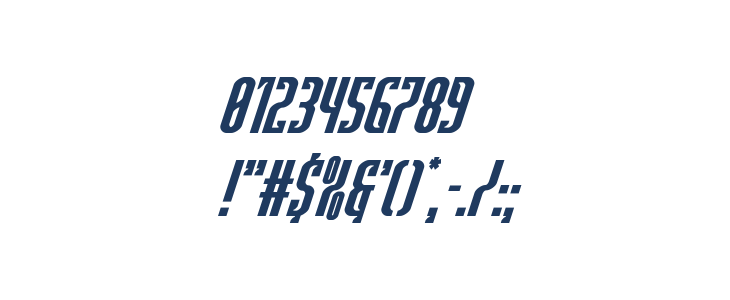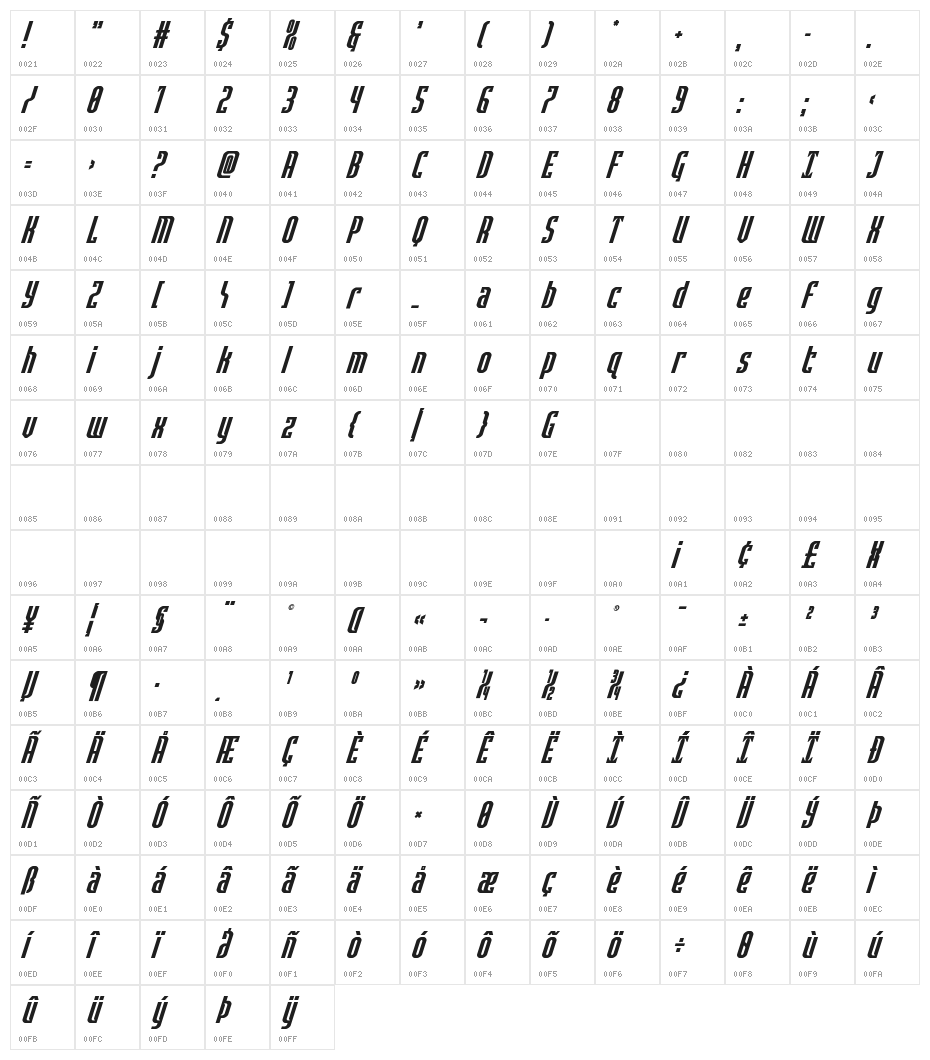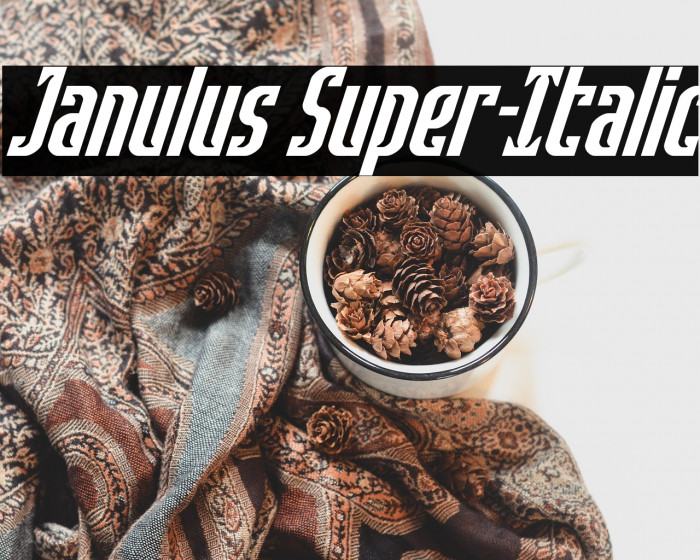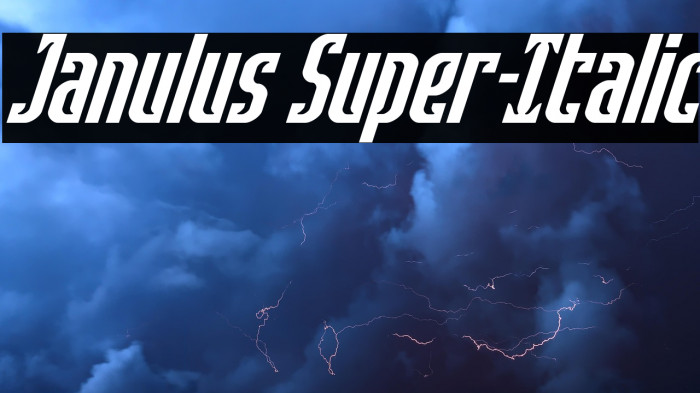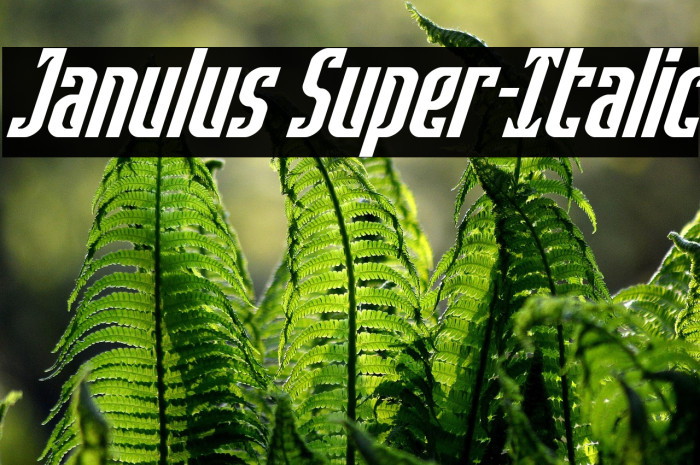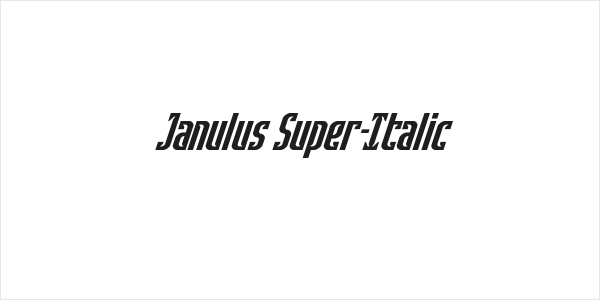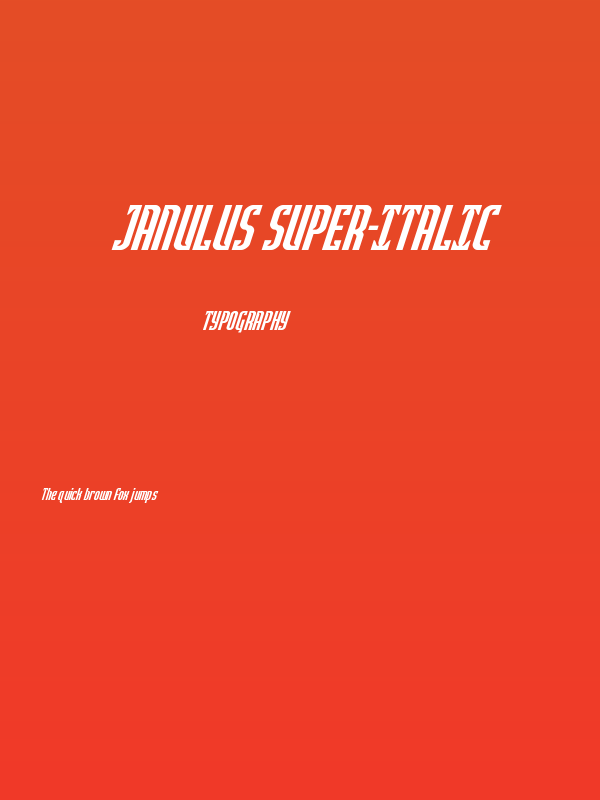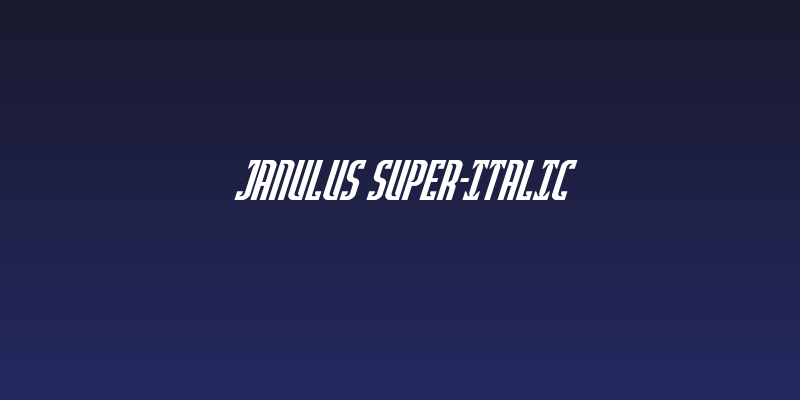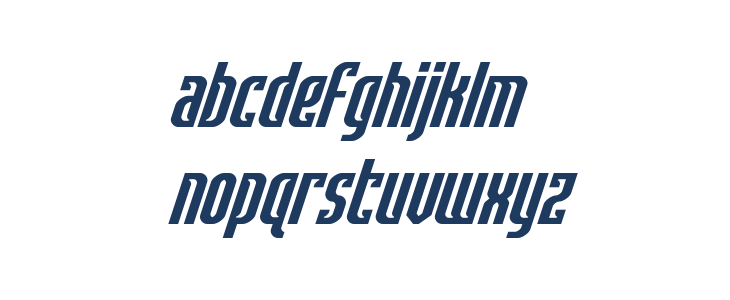
Janulus Super-Italic Font
Janulus Super-Italic Description
This font features a dynamic and energetic style with a strong italic slant, giving it a sense of motion and speed. The characters are bold and condensed, with sharp angles and clean lines that create a modern and impactful appearance. The uppercase and lowercase letters maintain a consistent design, while the numerals and special characters complement the overall aesthetic. The font's high contrast between thick and thin strokes adds to its striking visual appeal, making it suitable for attention-grabbing designs.